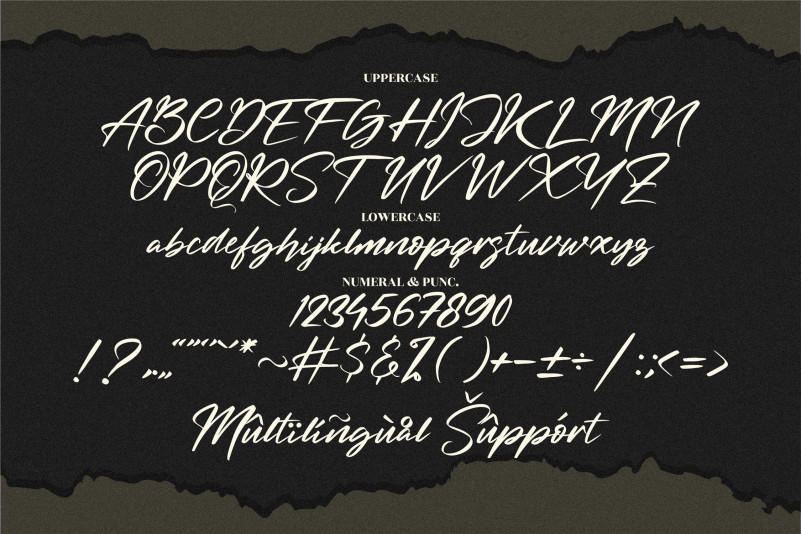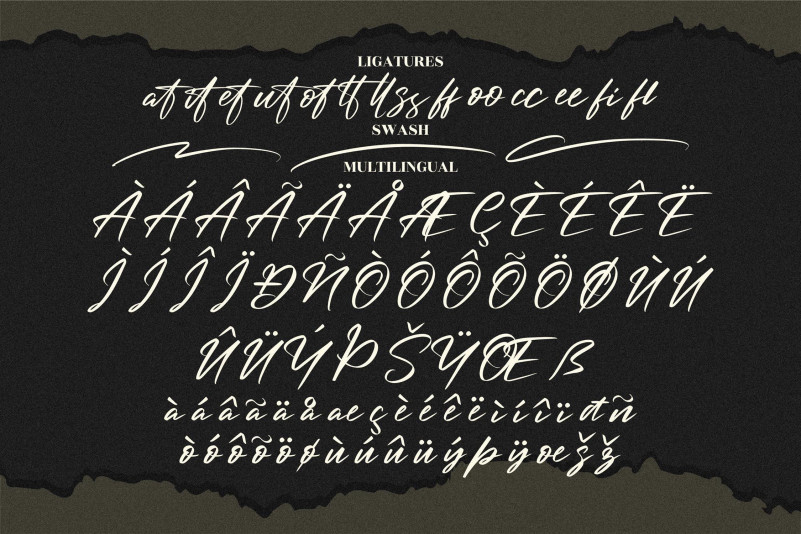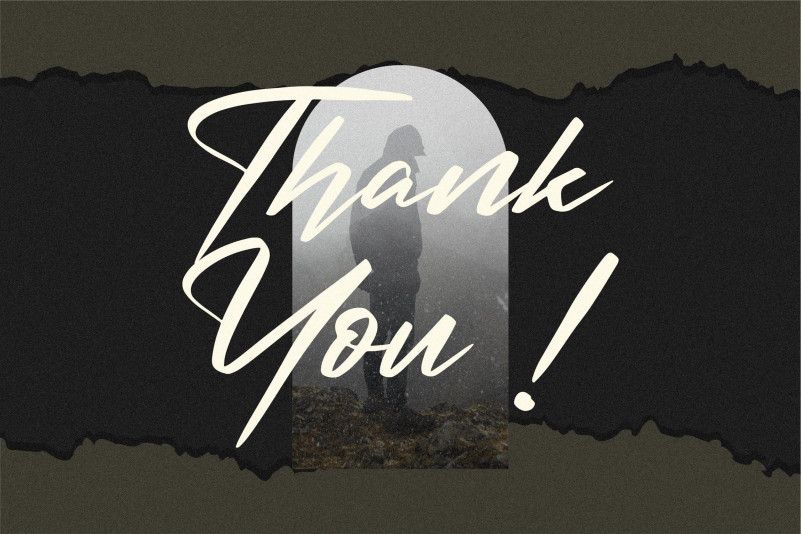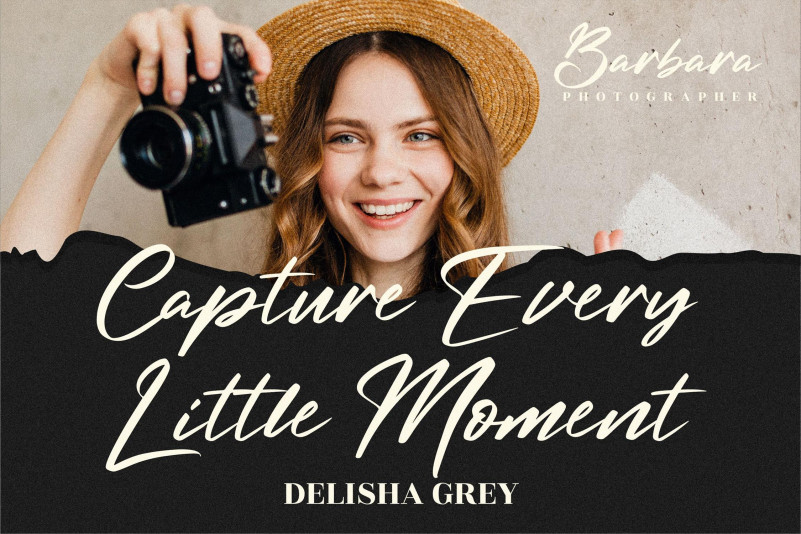
Beternite Limited Font
Beternite Limited Script Font
This is a beautiful, cursive and dainty script font. This sweet and adaptable script font has a wide spectrum of applications ranging from greeting cards to headlines and is guaranteed to add a romantic feel to your next project.